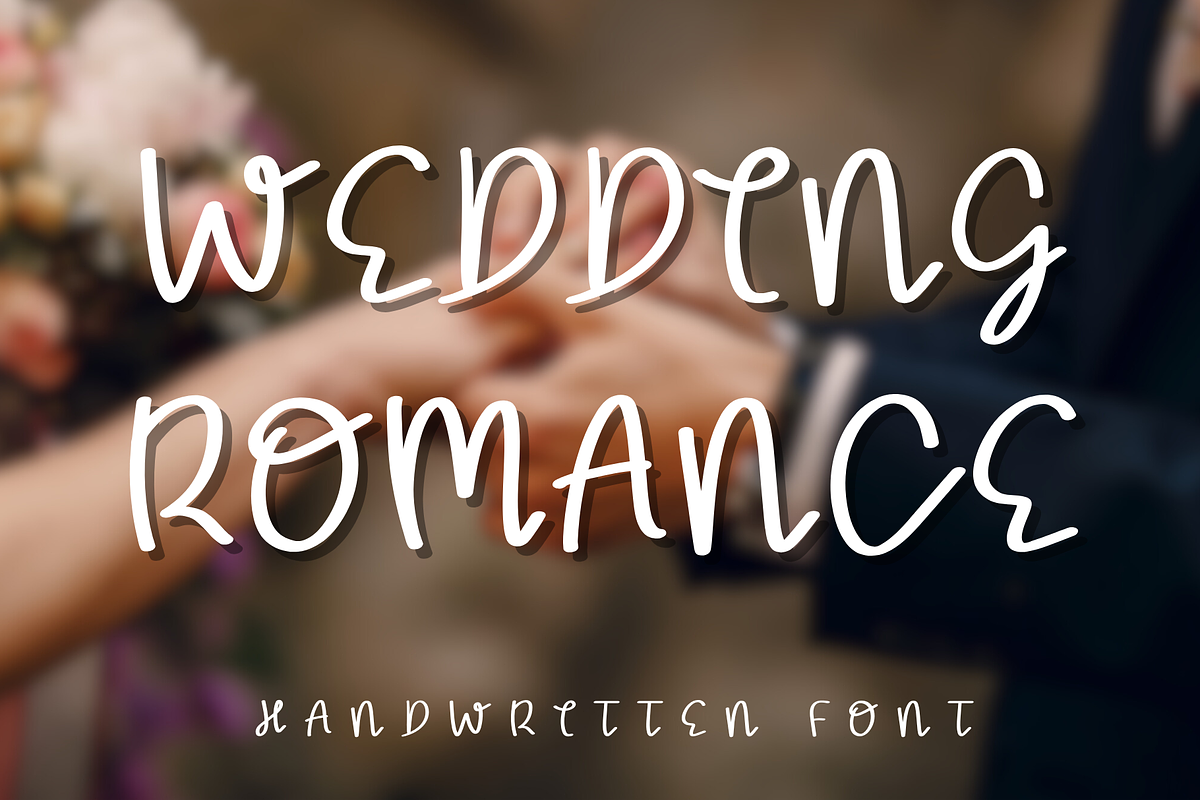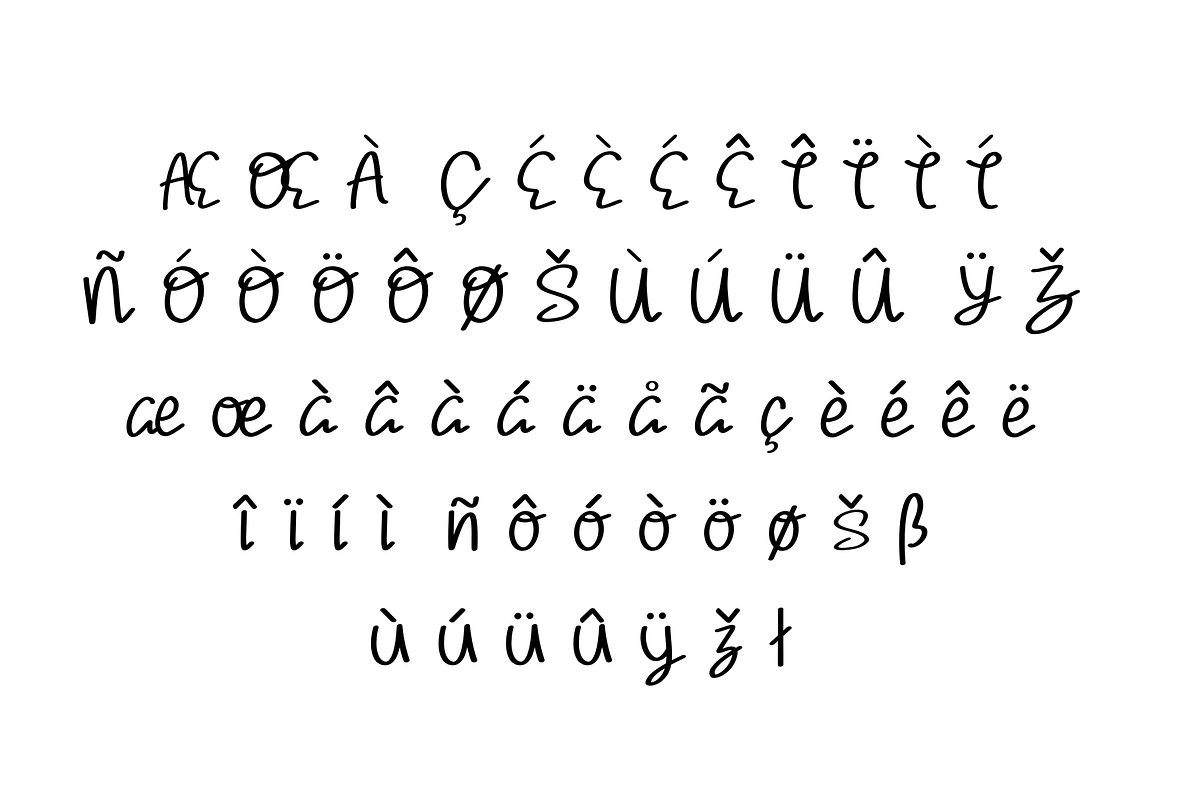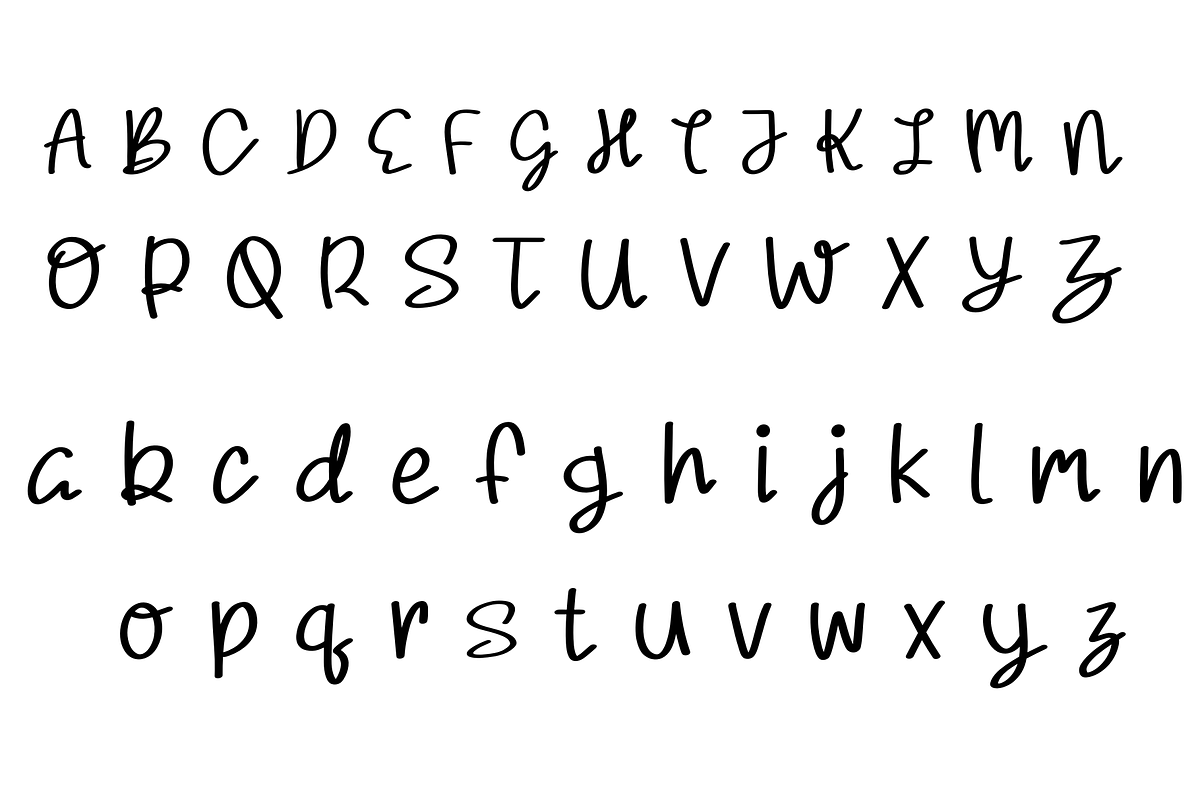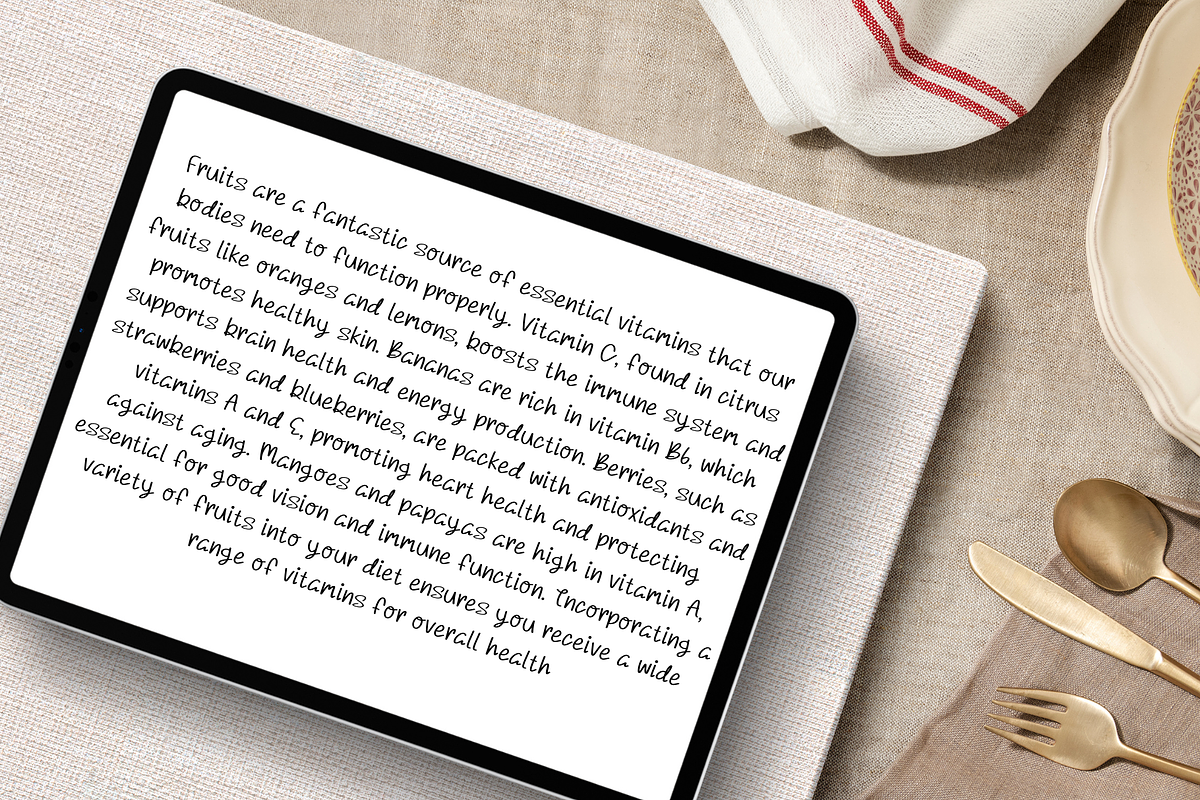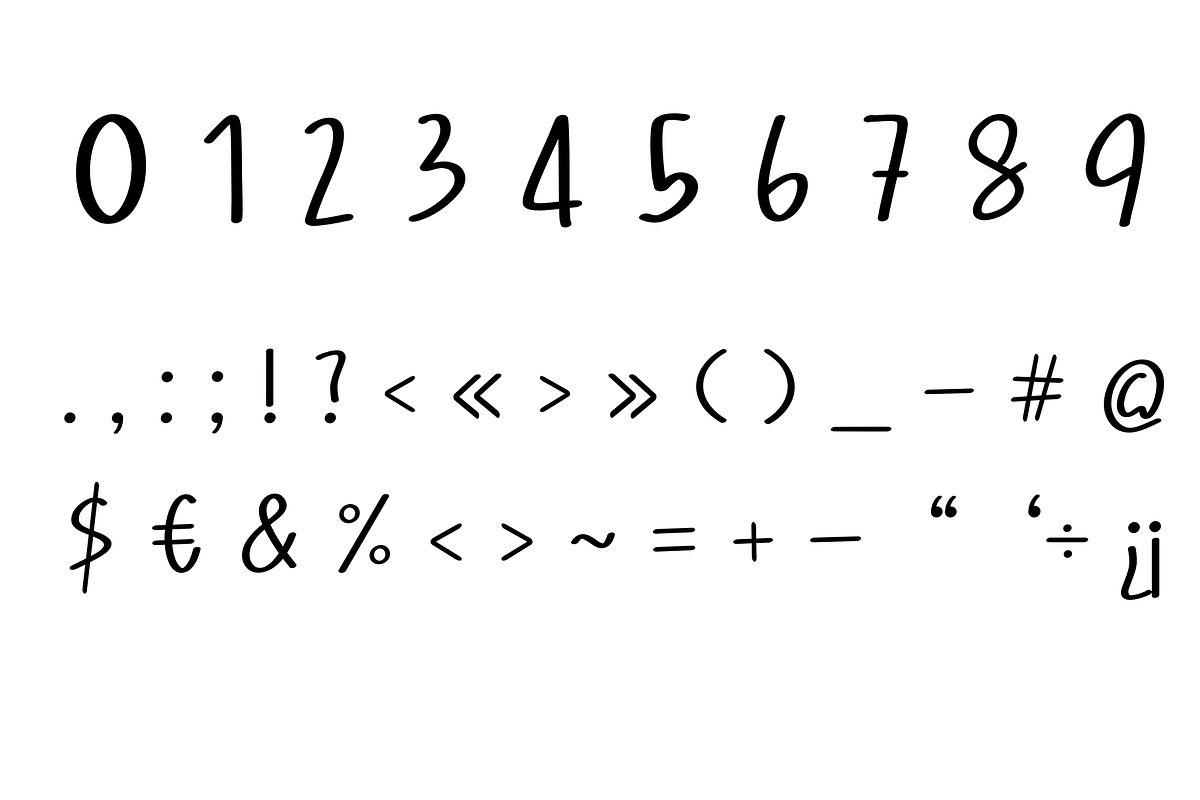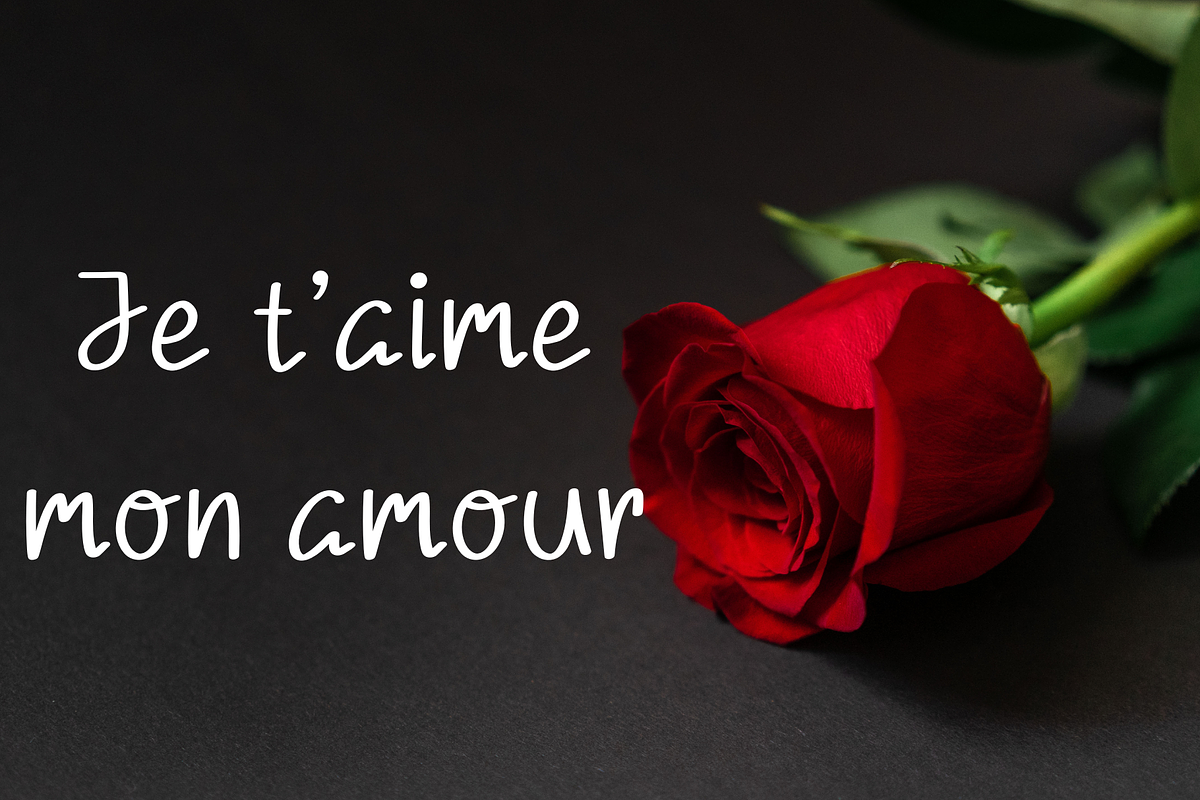
Wedding romance
Wedding Romance is a sophisticated and romantic handwritten font that adds a touch of elegance to your special designs. With its fluid strokes and delicate curves, this font is perfect for wedding invitations, save-the-date cards, event programs, love letters, and romantic branding projects. It effortlessly combines modern charm with timeless beauty, making it a must-have for creative professionals and DIY enthusiasts alike.